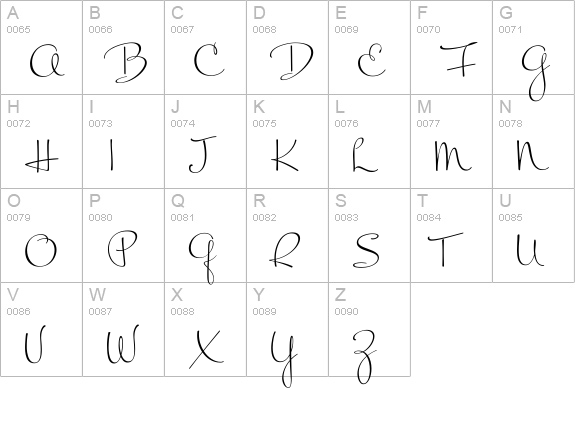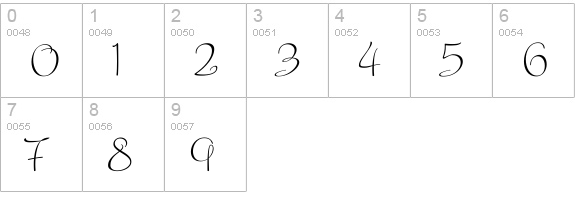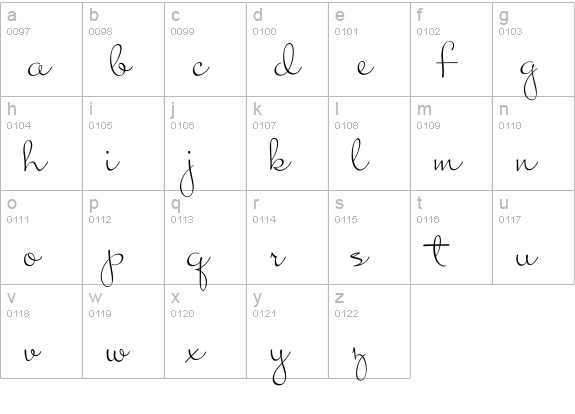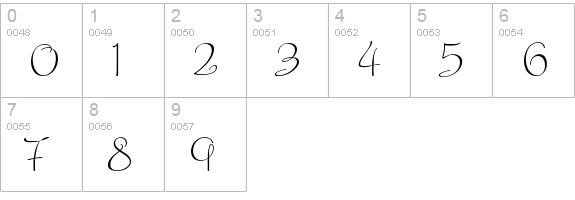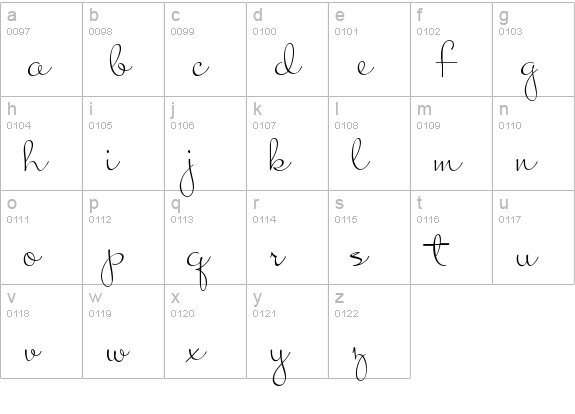
Mrs Blackfort Font Details
Mrs Blackfort font is a stunning and elegant typeface that exudes sophistication and charm. With its delicate curves and graceful lines, this font is perfect for adding a touch of class to any design project. Whether you're creating wedding invitations, branding materials, or social media graphics, Mrs Blackfort font is sure to make a lasting impression. The best part? Mrs Blackfort font is available for free download at FontsMarket.com. This means that you can add this beautiful font to your collection without breaking the bank. Don't miss out on the opportunity to elevate your designs with the timeless beauty of Mrs Blackfort font. Download it today and let your creativity shine!